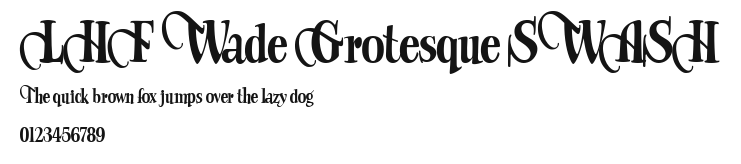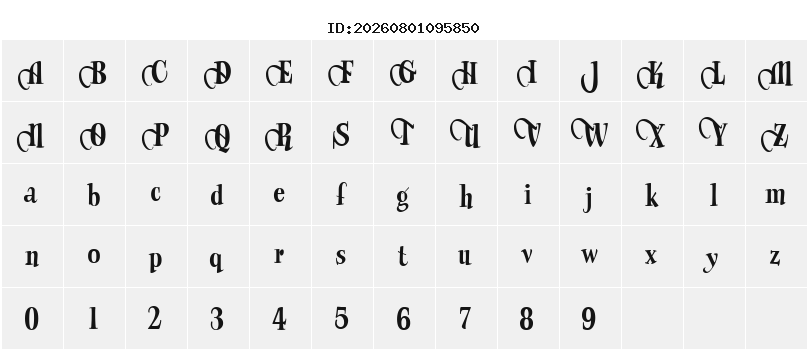
• Font Name: LHF Wade Grotesque SWASH
About LHF Wade Grotesque SWASH.ttf
LHF Wade Grotesque SWASH.ttf is a modern, elegant sans-serif font designed for ultimate readability and visual harmony. Perfect for branding, headlines, web design, and print materials.